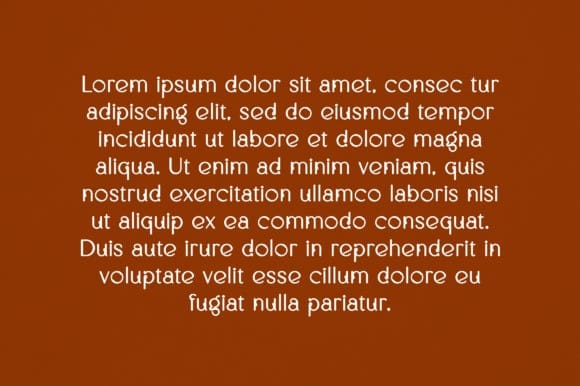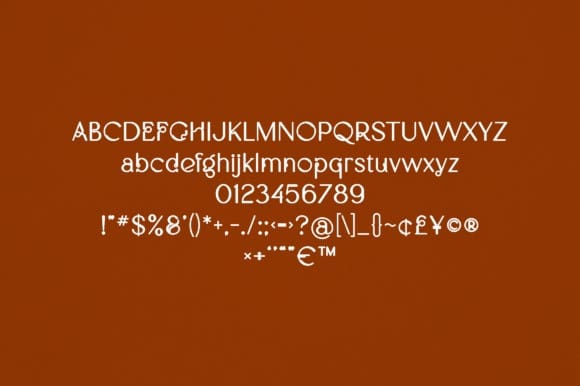
Ezlyn Font
Ezlyn Font is an elegant and versatile font that will make your typography truly unique! It will enchant every logo, branding, headline, or plain text!